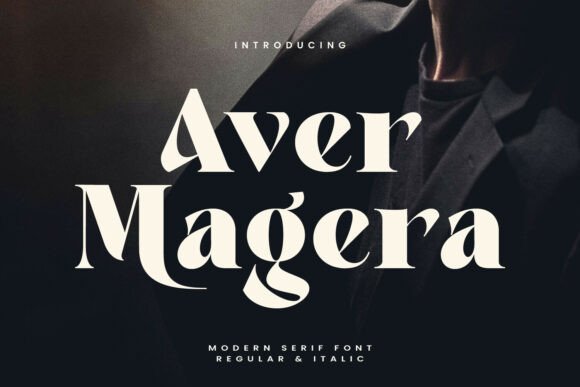
Aver Magera Font: Elevate Your Designs with Timeless Elegance and Contemporary Flair
In the world of typography, a font can make all the difference in the success of a design project. Aver Magera Font is a stunning modern serif font that has been crafted to bring a touch of sophistication and elegance to your creative endeavors. With its unique blend of classic charm and modern minimalist touch, Aver Magera is the perfect choice for designers who want to elevate their projects with a sense of confidence and refinement.
The Design Philosophy of Aver Magera
Aver Magera Font has been designed with a keen eye for detail, reflecting a deep understanding of the importance of typography in design. Each curve and serif in Aver Magera has been carefully crafted to exude sophistication, making it an ideal choice for designers who want their work to speak with confidence and poise. The font’s smooth contrast between thick and thin strokes creates a refined rhythm that feels both luxurious and approachable, making it perfect for a wide range of design applications.
Key Features of Aver Magera Font
- Modern Serif Design: Aver Magera boasts a modern serif design that brings a fresh perspective to traditional typography.
- Timeless Elegance: The font’s classic charm and sophisticated serifs evoke a sense of timeless elegance, perfect for high-end designs.
- Contemporary Flair: Aver Magera’s modern minimalist touch adds a contemporary flair to your designs, setting them apart from the rest.
- Regular and Italic Styles: Aver Magera comes in Regular and Italic styles, offering flexibility for both headlines and body text.
Applications of Aver Magera Font
Aver Magera Font is a versatile typeface that can be used in a variety of design applications, including:
Editorial Layouts
Aver Magera’s refined rhythm and sophisticated serifs make it perfect for editorial layouts, such as magazine covers, articles, and book designs.
Branding and Logo Design
The font’s modern minimalist touch and classic charm make it an excellent choice for branding and logo design, helping to establish a strong visual identity for your brand.
Fashion Projects
Aver Magera’s luxurious feel and sophisticated serifs make it perfect for fashion projects, such as fashion magazines, runway show designs, and clothing brand advertising.
High-End Packaging
The font’s refined rhythm and elegant serifs make it an excellent choice for high-end packaging designs, such as luxury product labels and premium food packaging.
Wedding Invitations and Stationery
Aver Magera’s classic charm and sophisticated serifs make it perfect for wedding invitations, stationery, and other formal events.
The Benefits of Using Aver Magera Font
By incorporating Aver Magera Font into your design projects, you can expect a range of benefits, including:
Elegance and Sophistication
Aver Magera’s refined rhythm and sophisticated serifs bring a sense of elegance and sophistication to your designs.
Flexibility and Versatility
The font’s Regular and Italic styles offer flexibility for both headlines and body text, making it perfect for a wide range of design applications.
Unique and Memorable Designs
Aver Magera’s modern minimalist touch and classic charm help to create unique and memorable designs that set you apart from the competition.
In conclusion, Aver Magera Font is a stunning modern serif font that has been crafted to bring a touch of sophistication and elegance to your design projects. With its unique blend of classic charm and modern minimalist touch, Aver Magera is the perfect choice for designers who want to elevate their work with confidence and refinement. Whether you’re working on editorial layouts, branding, fashion projects, or high-end packaging, Aver Magera Font is sure to transform your text into art, setting the tone for elegance and modern design aesthetics.